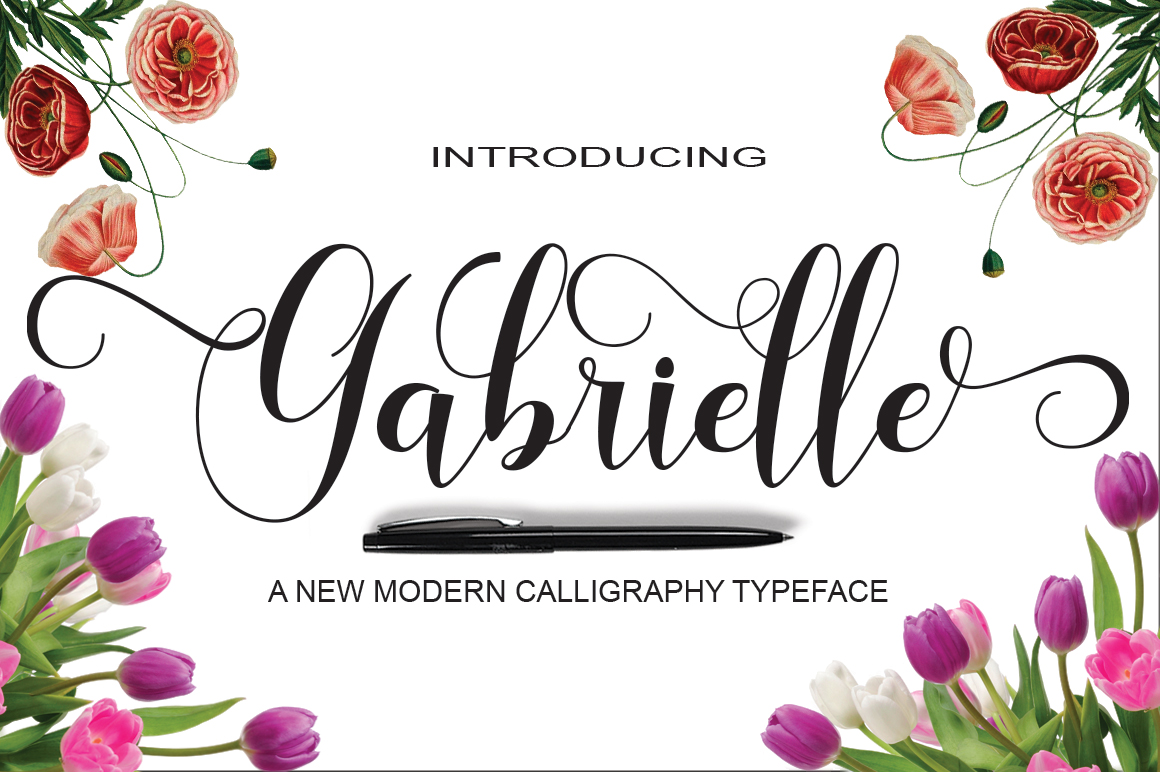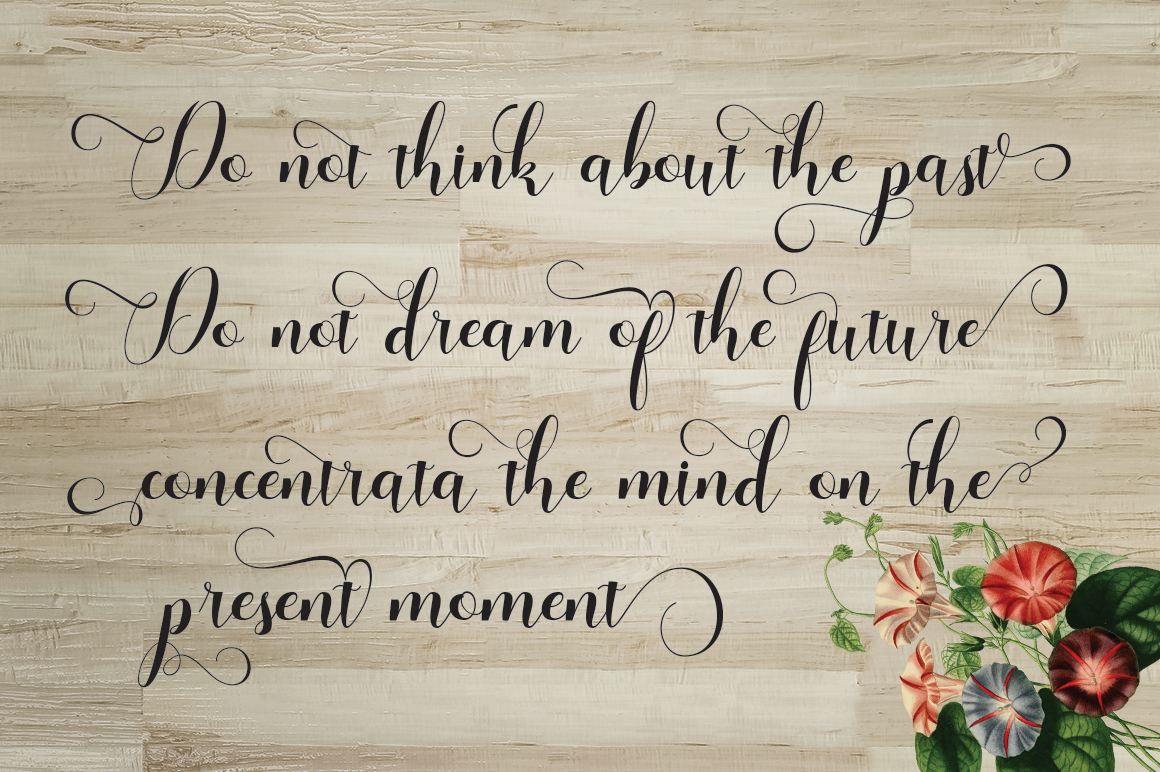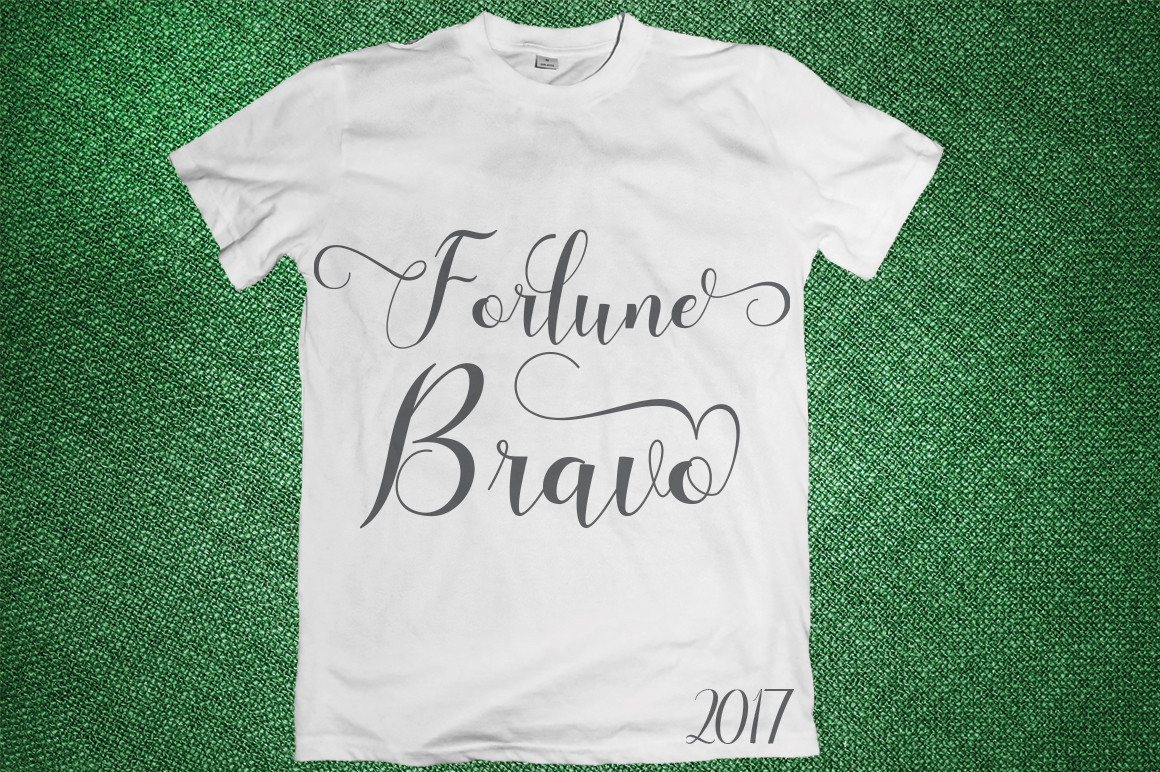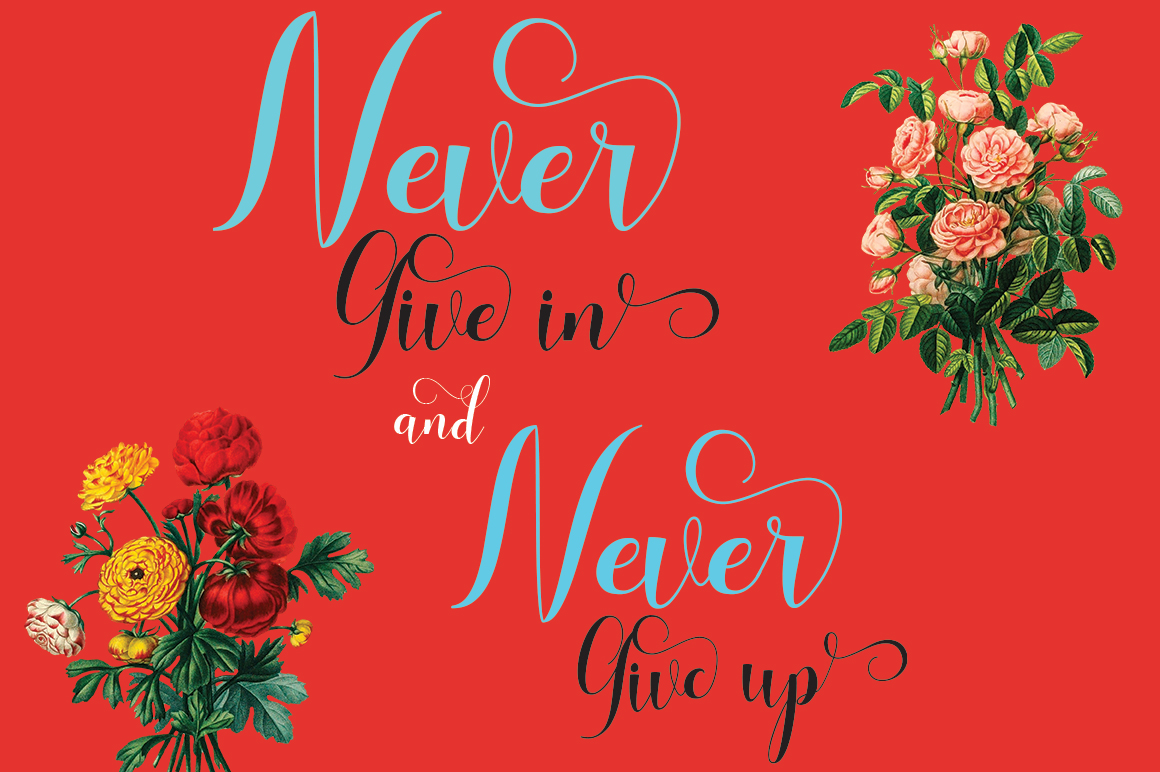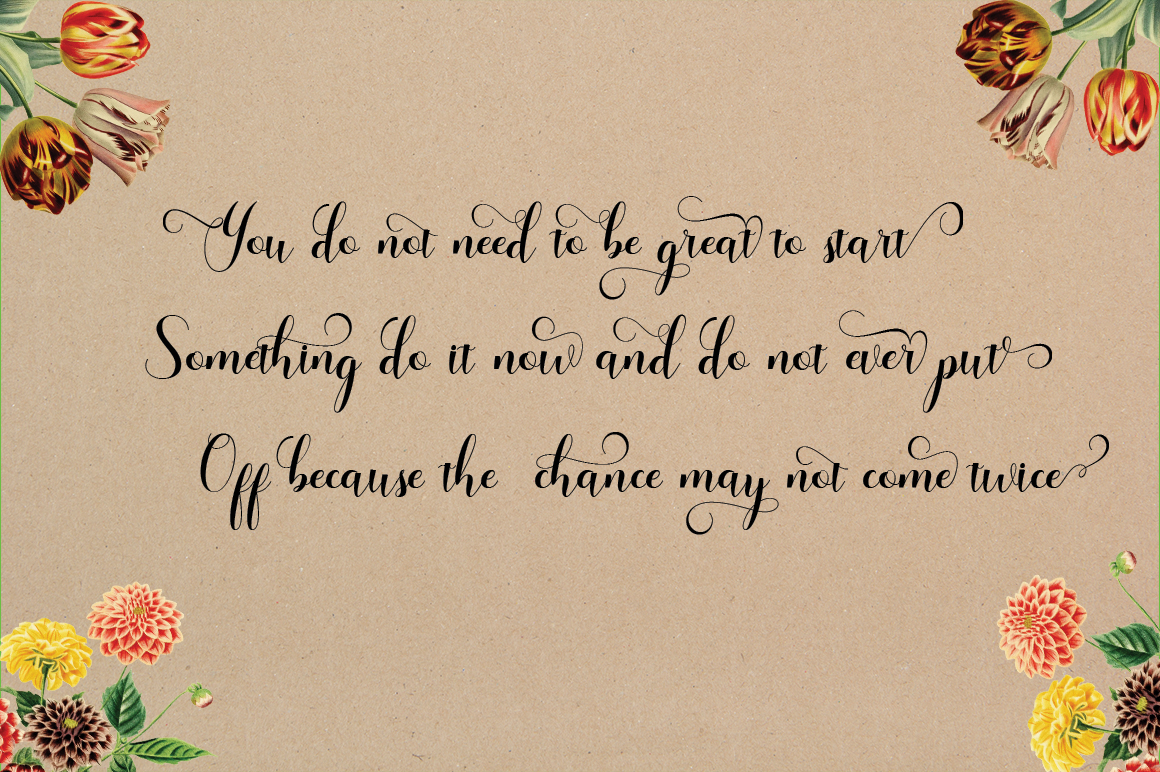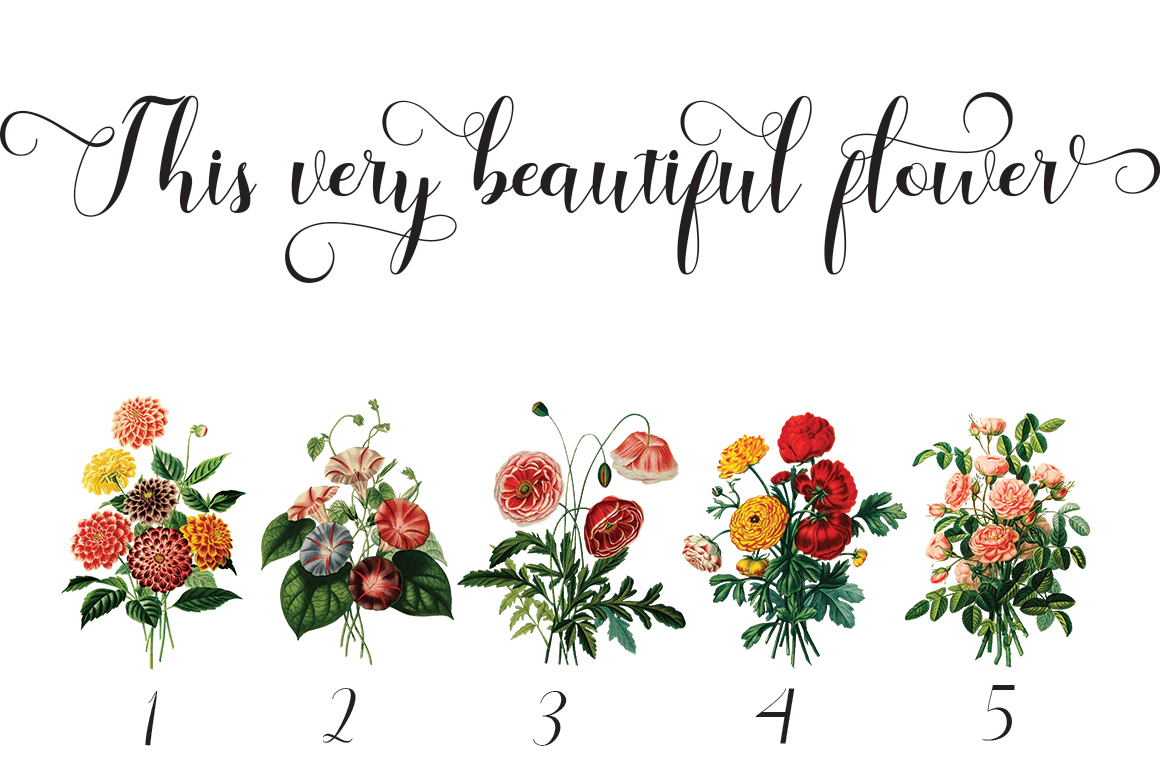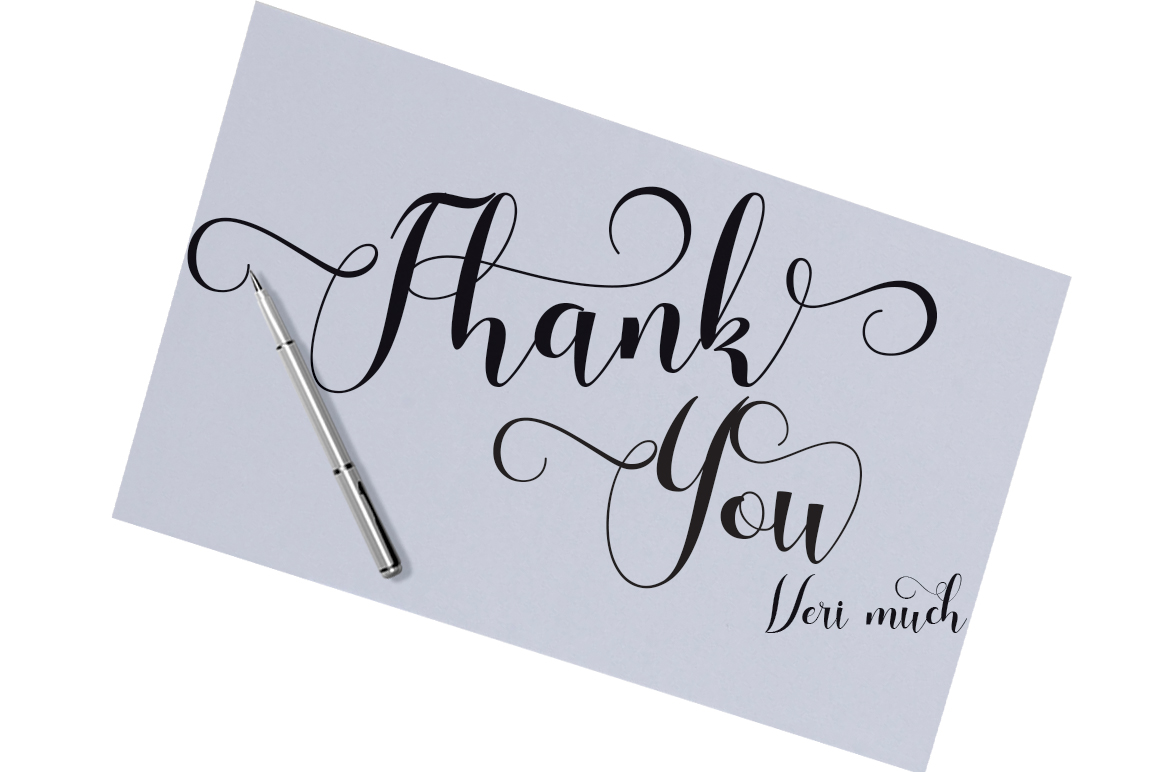
Gabrielle Font
About Gabrielle Font
Gabrielle is a handmade font, created by Naldy Studio. It offers support for a large range of languages and comes with loads of swashes and alternates.